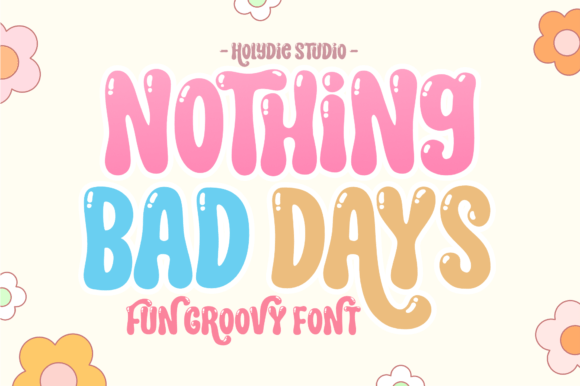
Introducing Nothing Bad Days Font, the perfect choice for those seeking a font that injects life, playfulness, and a touch of groove into their designs. This lively and vibrant font, created by Holydie Studio, is bound to captivate the hearts of users looking to elevate their projects to new heights.
With its rounded characters that dance effortlessly on the page, Nothing Bad Days Font exudes a carefree spirit that is contagious. It brings an energetic and dynamic feel to your text, making it the ideal choice for anyone who wants to infuse their designs with a sense of joy and excitement.
Whether you're working on a logo, a poster, or any other creative endeavor, Nothing Bad Days Font is here to awaken your inner artist. Its expressive nature allows you to convey emotions and messages in a unique and eye-catching way. Say goodbye to dull and monotonous designs and say hello to a font that sparks creativity and sets your work apart from the crowd.
Imagine the impact this font could have on your brand identity. With Nothing Bad Days Font, your logos will stand out among the competition, leaving a lasting impression on your audience. Its versatility allows for seamless integration into various design styles, ensuring that your brand's message is conveyed with maximum impact.
But it's not just about aesthetics; Nothing Bad Days Font is also designed with functionality in mind. Its legibility ensures that your text remains clear and easily readable, even at smaller sizes. This font is a true all-rounder, ticking all the boxes for both style and substance.